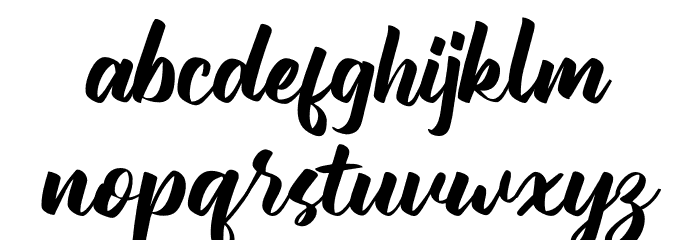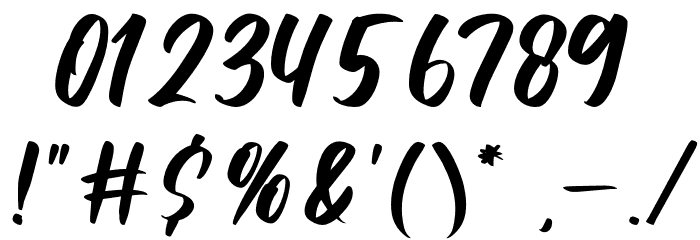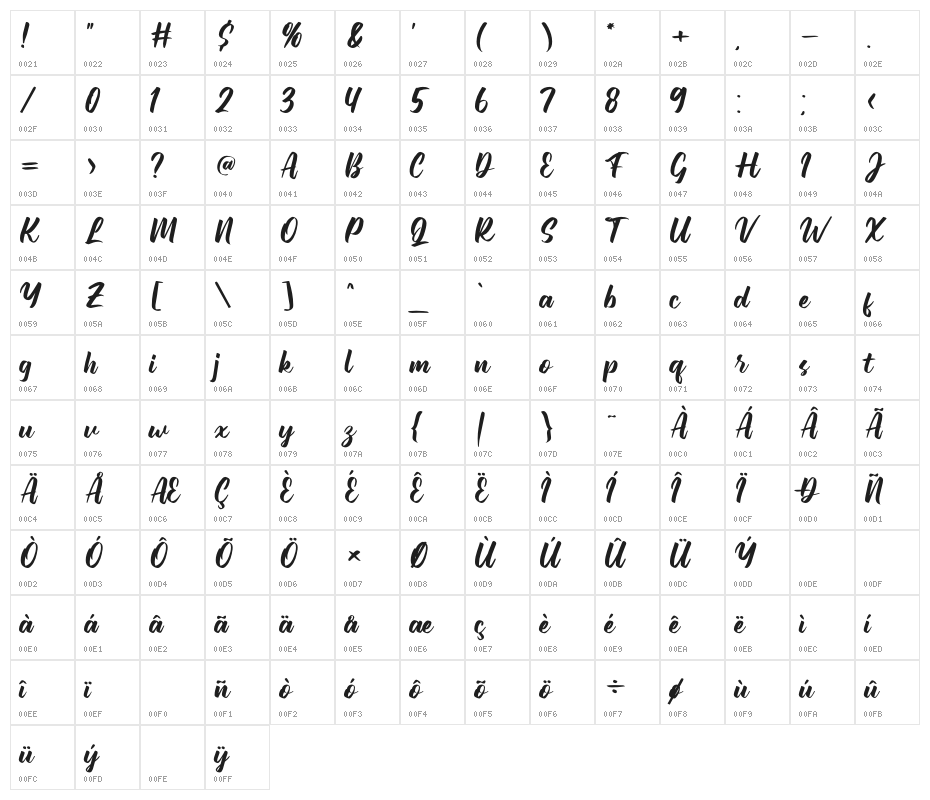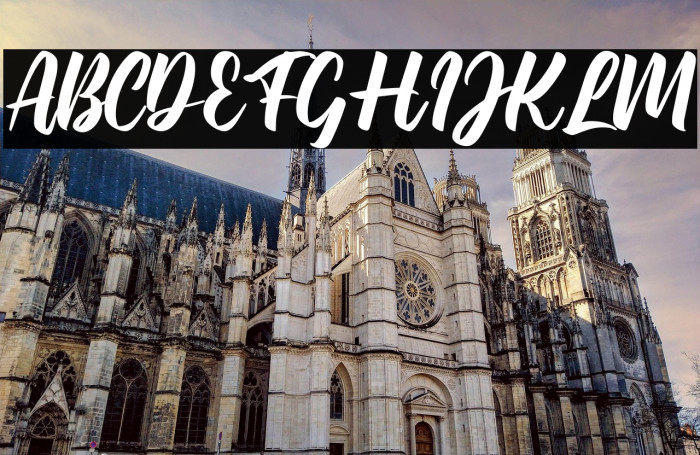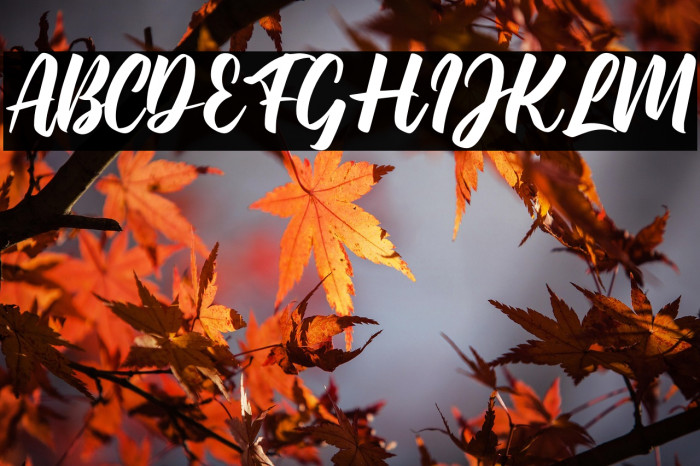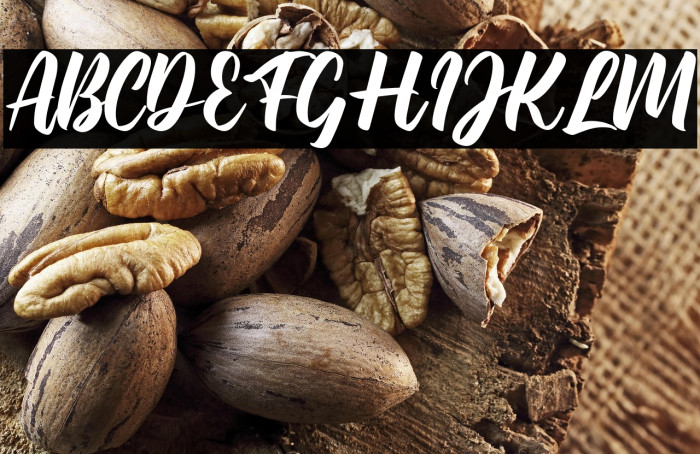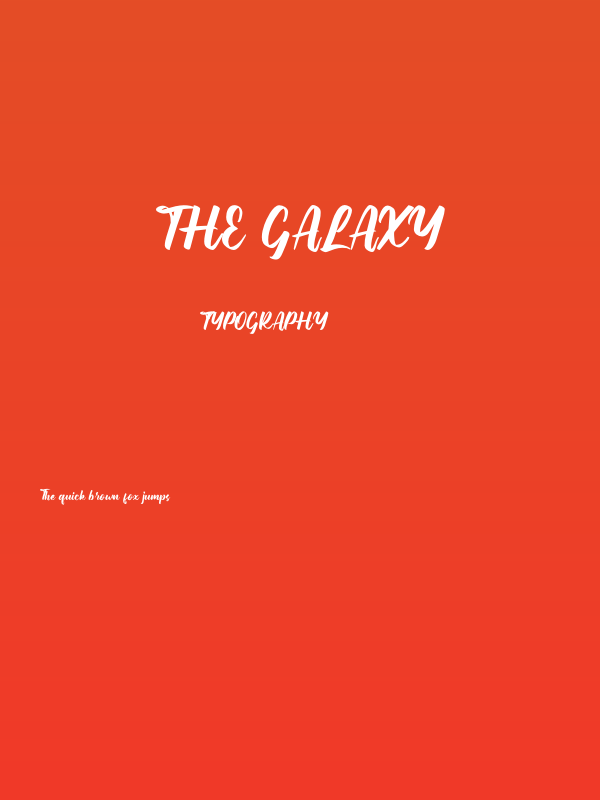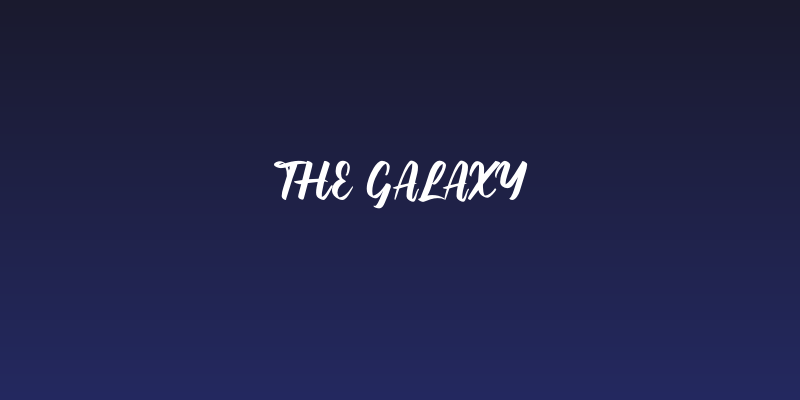
The Galaxy Font
This font features a bold, flowing script style that exudes elegance and flair. The characters are connected in a cursive manner, giving it a handwritten appearance. The strokes are thick and consistent, providing a strong visual impact. The uppercase letters are slightly larger and more pronounced, while the lowercase letters maintain a smooth and cohesive flow. The numbers and special characters are designed to match the overall style, ensuring uniformity across all text elements. This font is ideal for creating eye-catching designs that require a touch of sophistication and personality.
A bold, flowing script font with a handwritten appearance.
- Font: The Galaxy
- Proposed Projects: Ideal for wedding invitations, branding, logo design, and social media graphics.
- Category: Script
- Use Case: Logos, Headlines, Invitations